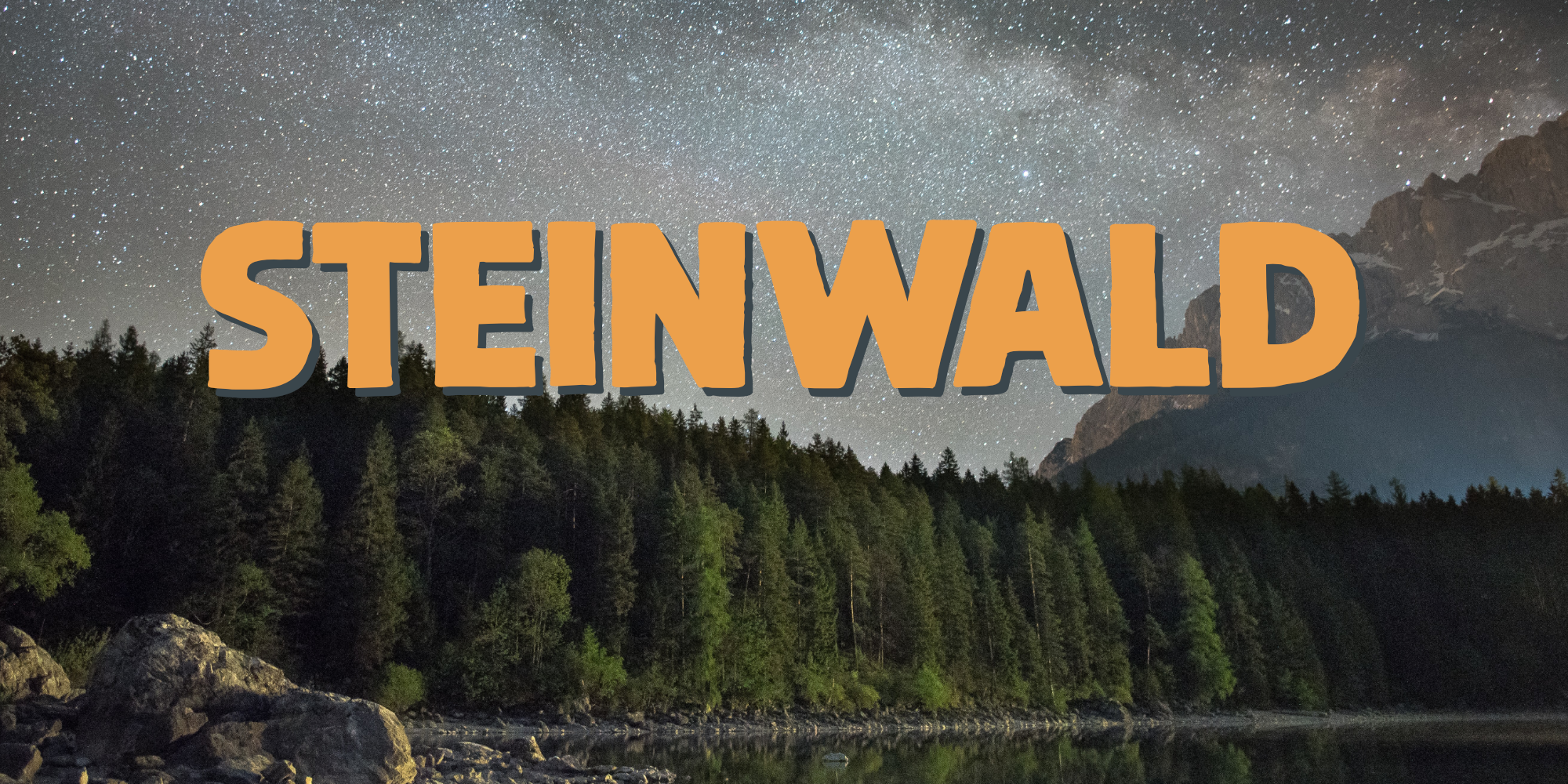
Steinwald Font is perfect for Germanic heritage festivals, Bavarian restaurant branding, German brewery logos, Alpine lodge signage, traditional German bakery marketing, Oktoberfest event promotions, medieval castle exhibitions, Black Forest tourism materials, Germanic cultural centers, traditional woodworking businesses, mountain cabin retreats, and authentic German cuisine establishments.
This font is exciting because it captures the rugged strength and ancient wisdom of the German stone forests, featuring bold, enduring letterforms that echo the same timeless solidity and natural grandeur found in the legendary Steinwald region's granite peaks and ancient woodland mysteries. The robust character design evokes images of medieval stonework and traditional Germanic craftsmanship, while maintaining the earthy authenticity and cultural heritage that connects modern design to centuries of German tradition and folklore. Each letter stands with the unwavering strength and natural beauty that has defined Germanic culture through countless generations.
The Steinwald Font family includes regular and bold weights with complete character sets featuring traditional Germanic numerals, period-appropriate punctuation marks, and decorative elements inspired by stone carving and medieval Germanic design traditions. Advanced versions may offer additional stylistic variants with enhanced rustic effects, alternate characters that mimic ancient stonework, and ornamental elements that celebrate Germanic cultural heritage and craftsmanship.
Whether you're developing Germanic cultural branding, creating traditional European event materials, or designing authentic heritage tourism content, Steinwald Font Free Download provides the solid foundation and cultural authenticity your project needs to honor Germanic traditions while building lasting connections with European heritage. This typeface transforms ordinary text into enduring statements that carry the weight of history and the strength of ancient stones. The font's traditional character makes it ideal for businesses and organizations celebrating Germanic culture and European craftsmanship. Heritage tourism operators and German cultural enthusiasts will appreciate how this font brings authentic Germanic strength to their work with its genuinely traditional and culturally rooted character that honors ancestral wisdom.